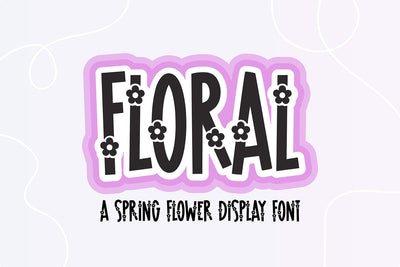
Floral Spring Flower Font
"Floral" is a cute flower display font.
This cute font will spruce up any spring project. Use it on craft projects, home decor, signs, and more!